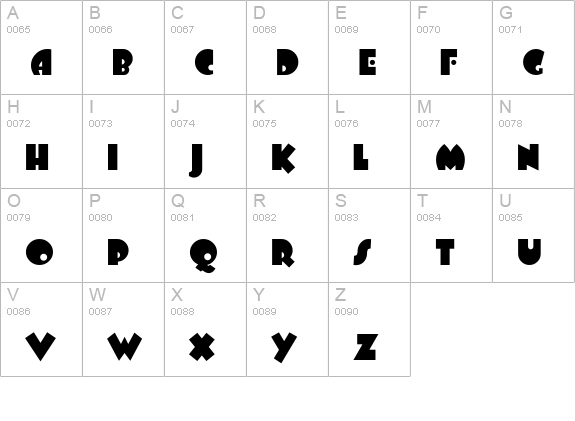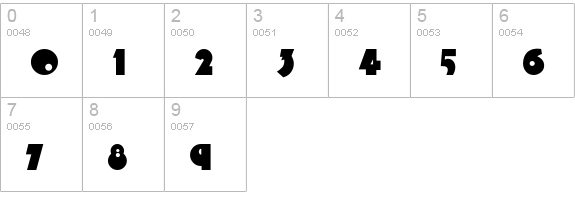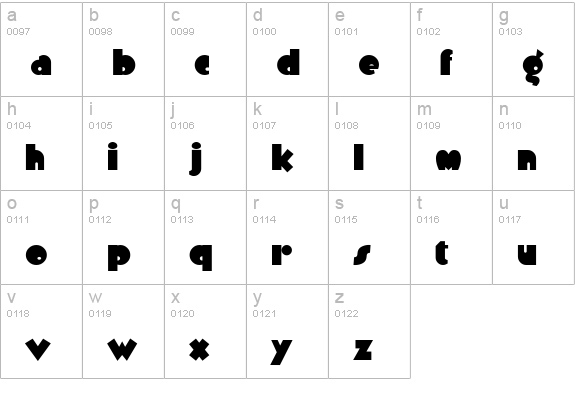
ArbuckleRemix Font Details
ArbuckleRemix font is a modern and stylish typeface that combines classic elegance with a contemporary twist. With its sleek lines and sophisticated flair, this font is perfect for adding a touch of class to any design project. Whether you're creating a logo, a poster, or a website, ArbuckleRemix font will elevate your work to the next level. What's even better is that ArbuckleRemix font is available for free! You can download this exquisite typeface at FontsMarket.com and start using it in your projects right away. Don't miss out on the opportunity to add a touch of sophistication to your designs with ArbuckleRemix font. Download it now and let your creativity shine!